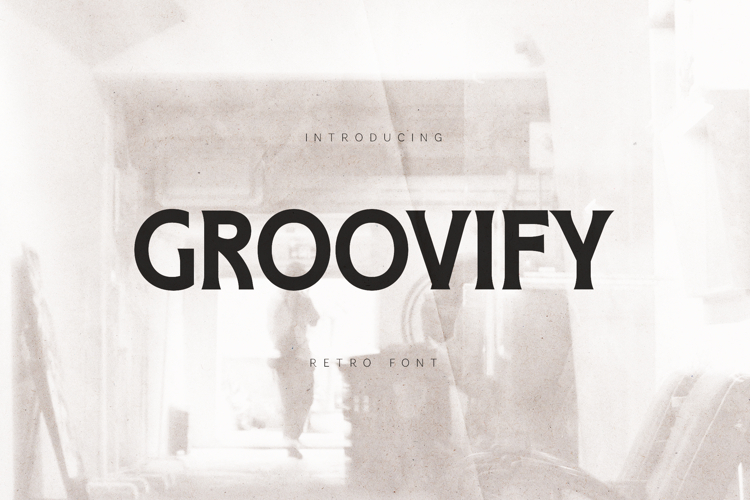
Groovify Bold Retro Serif Font
Groovify is a bold retro serif font inspired by classic typography, vintage posters, and timeless editorial design. With strong letterforms, smooth curves, and confident proportions, Groovify delivers a nostalgic yet modern look that instantly grabs attention.
Perfect for logos, branding, headlines, posters, packaging, editorials, and statement typography, Groovify works beautifully across fashion, lifestyle, music, magazines, and creative branding projects. Its solid structure makes it highly readable while maintaining a distinctive retro character.
Retro branding, logos, posters, headlines, editorial design, magazines, packaging, vintage projects, lifestyle brands, and bold typography.